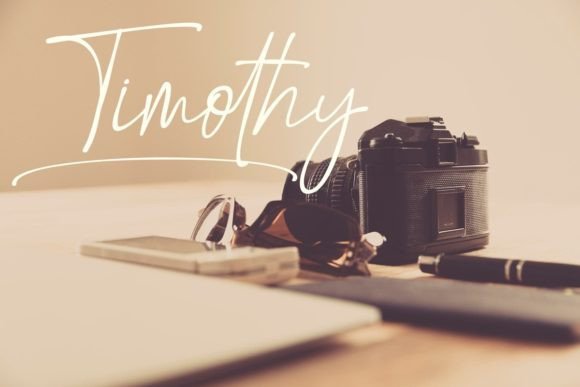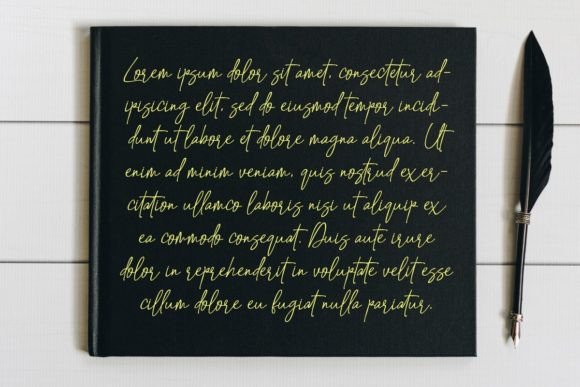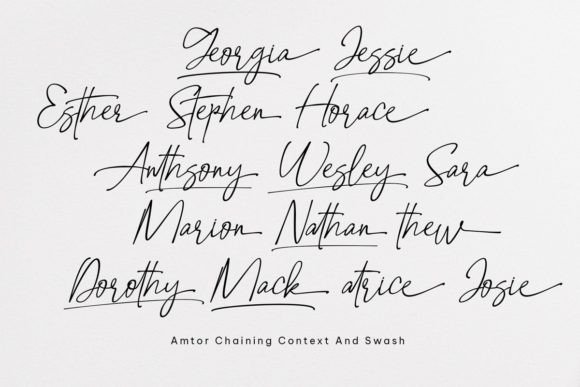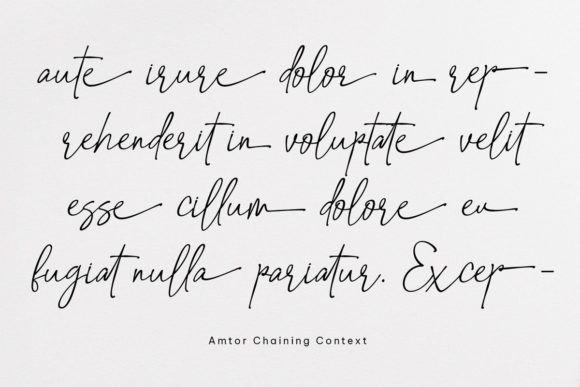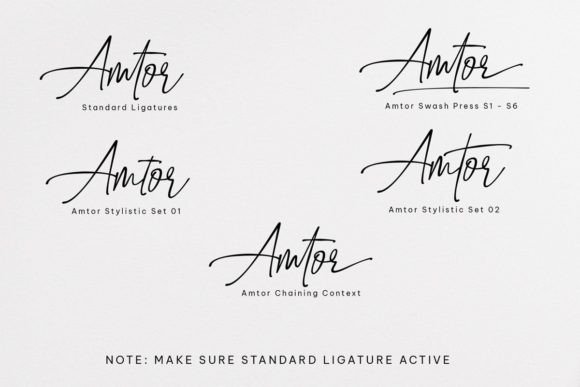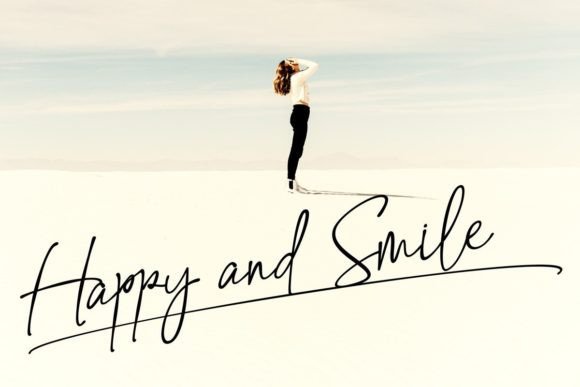
The Amtor Handwritten Script Font: A Designer’s New Best Friend
I’ll never forget the time I was working on a branding project for a trendy boutique, and I just couldn’t find the perfect font to capture their playful yet sophisticated vibe. The client was specific about wanting a handwritten script font that was both fashionable and easy to read. After hours of scouring through font libraries, I stumbled upon the Amtor Handwritten Script Font. It was love at first sight! 💕
The Amtor Font is a game-changer for designers, crafters, and creative hobbyists like you and me. Its simple, clean lines and fashionable flair make it perfect for a wide range of design projects. In this article, I’ll share my honest review of the Amtor Font, provide a step-by-step guide on how to use it on different platforms, and explore similar fonts that might tickle your fancy.
Honest Review: What I Love and What I Don’t
- ✅ Easy to read and understand, even at small font sizes
- ✅ PUA encoded for effortless access to glyphs and swashes
- ✅ Perfect for mixing and matching with other fonts and design elements
- ✅ Highly versatile and adaptable to various design projects
- ⚠️ Limited character set compared to some other script fonts
- ⚠️ May not be the best fit for very formal or traditional designs
The Story Behind Amtor Font
The Amtor Font was designed with the intention of creating a beautiful, easy-to-read script font that’s perfect for a wide range of design projects. The designer aimed to craft a font that’s both fashionable and versatile, making it a great addition to any designer’s font library.
| Font Name | Amtor Font |
| Author | FontCastle |
A: PUA (Private Use Area) encoding allows font users to access glyphs, swashes, and other special characters easily. This means you can mix and match different elements to create unique designs.
Q: Is Amtor Font suitable for body text?
A: While Amtor Font is easy to read, it’s primarily designed for display text. You may want to choose a different font for body text that’s easier to read at smaller font sizes.